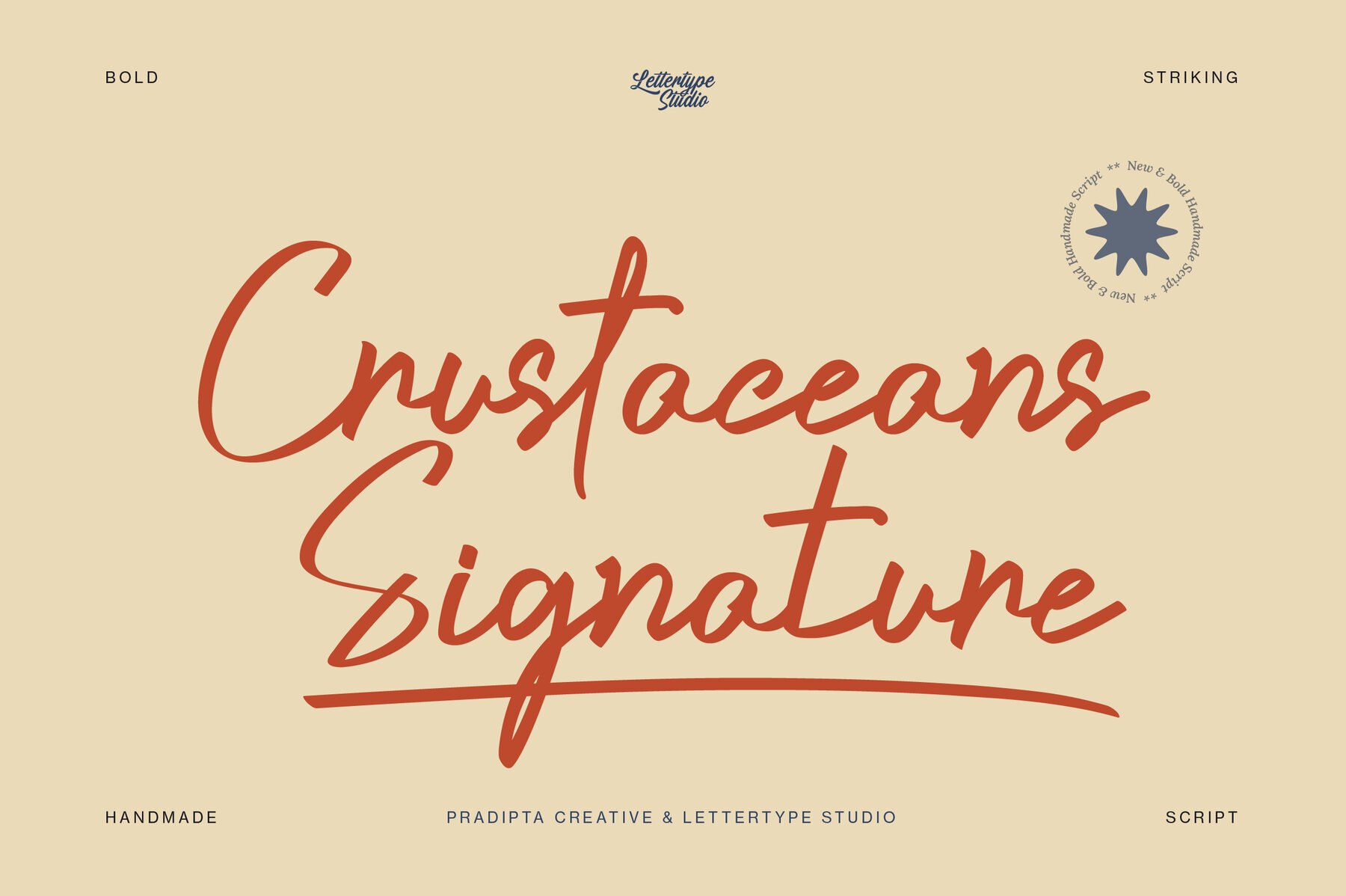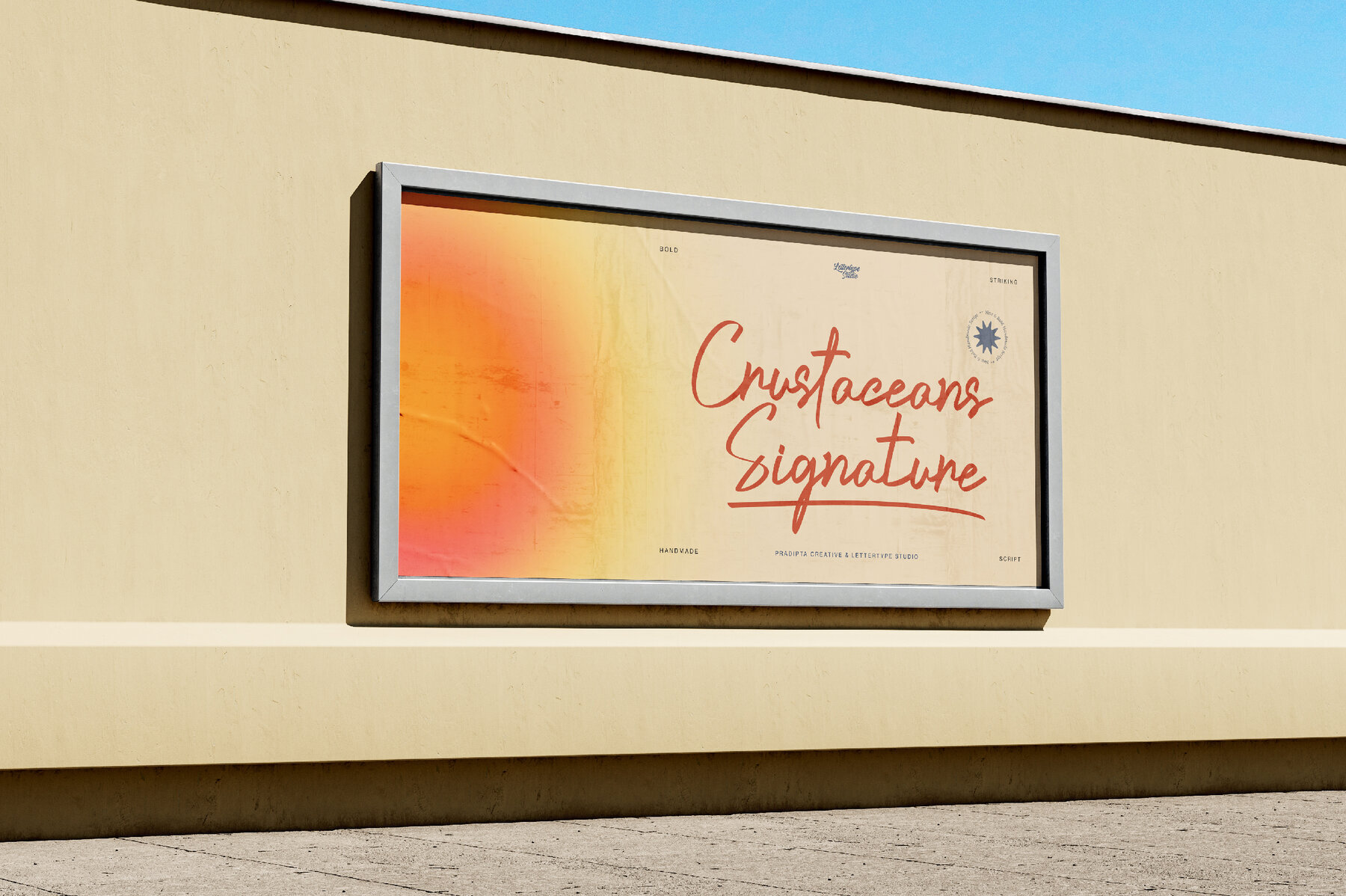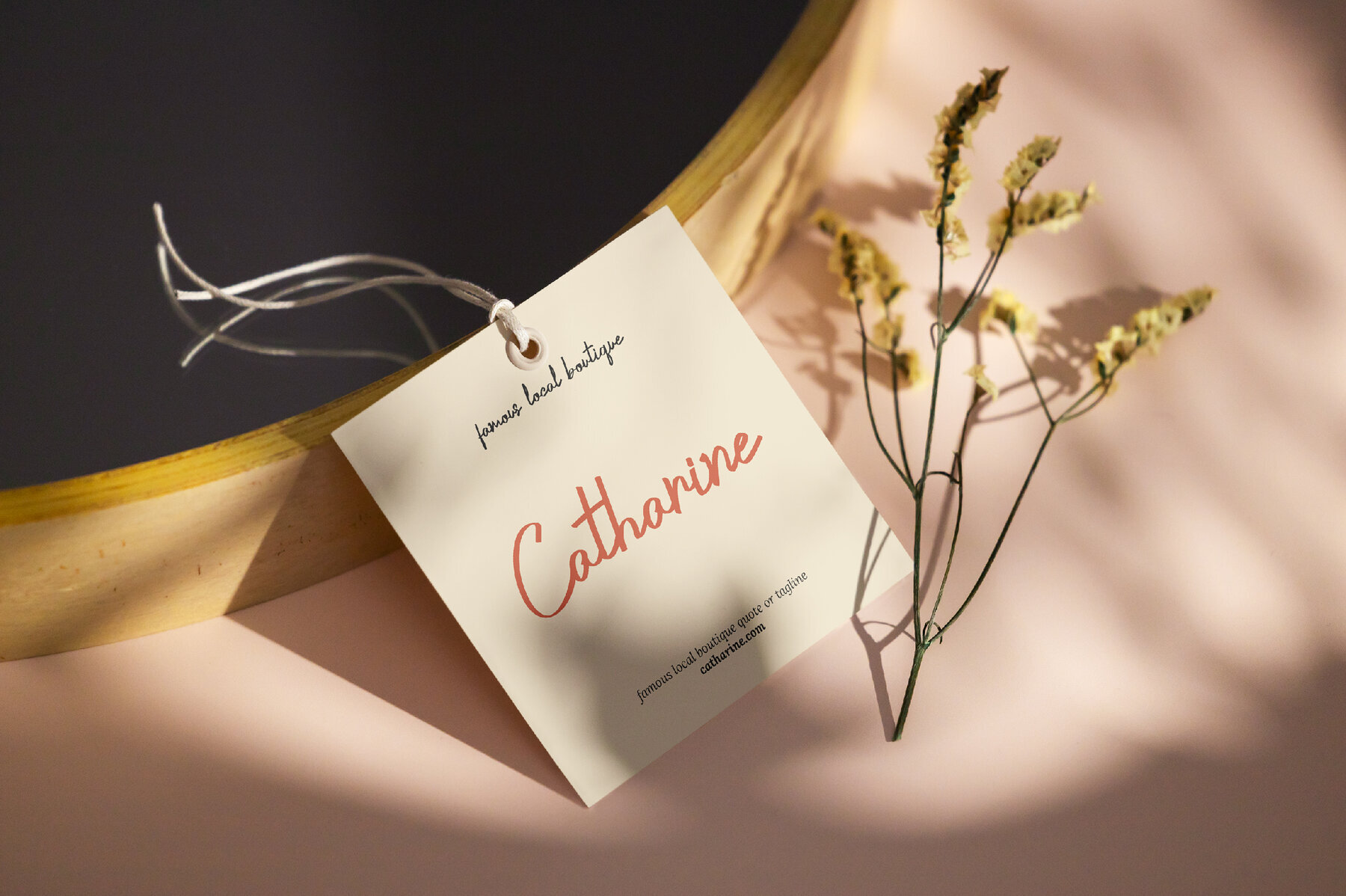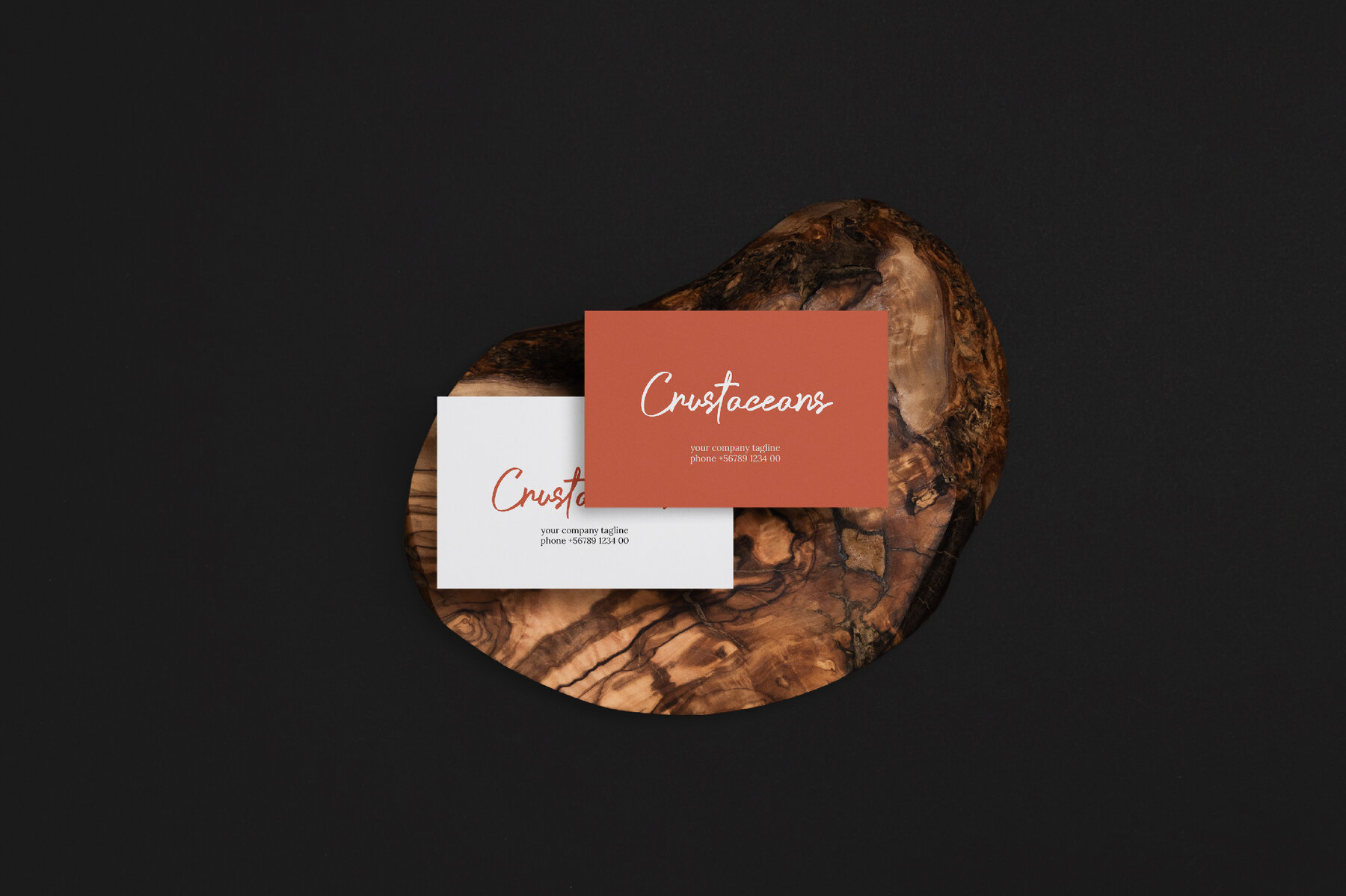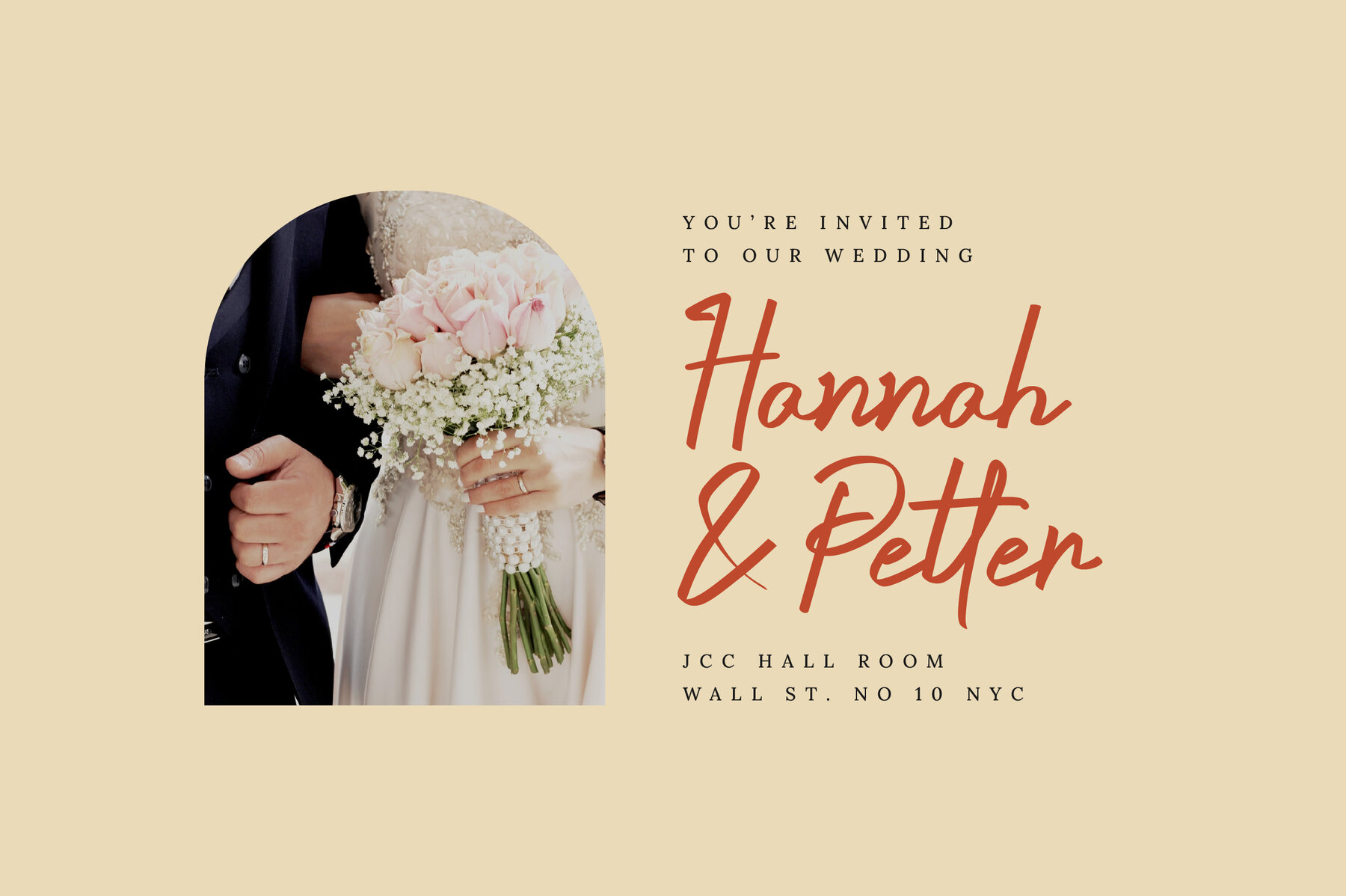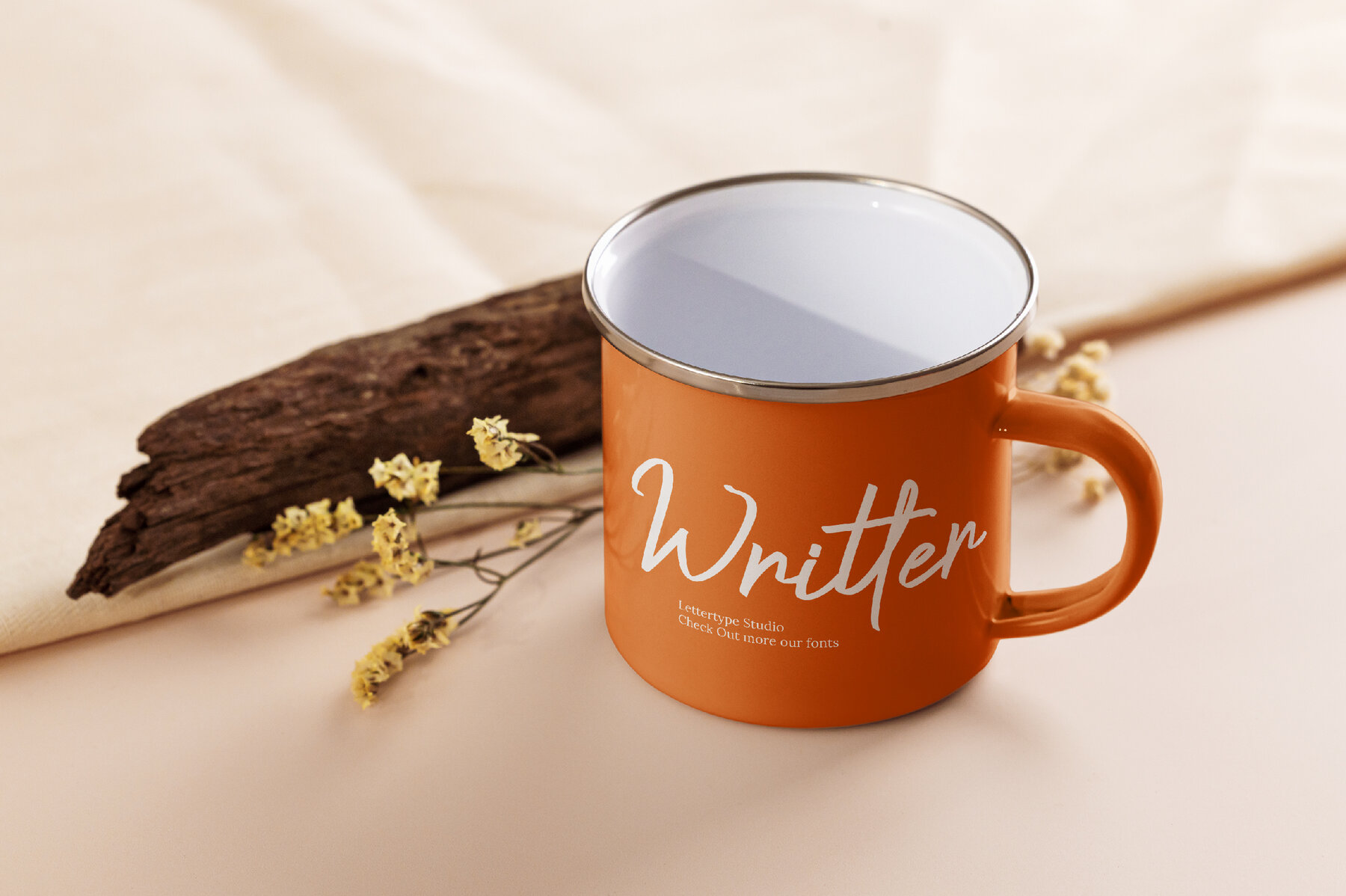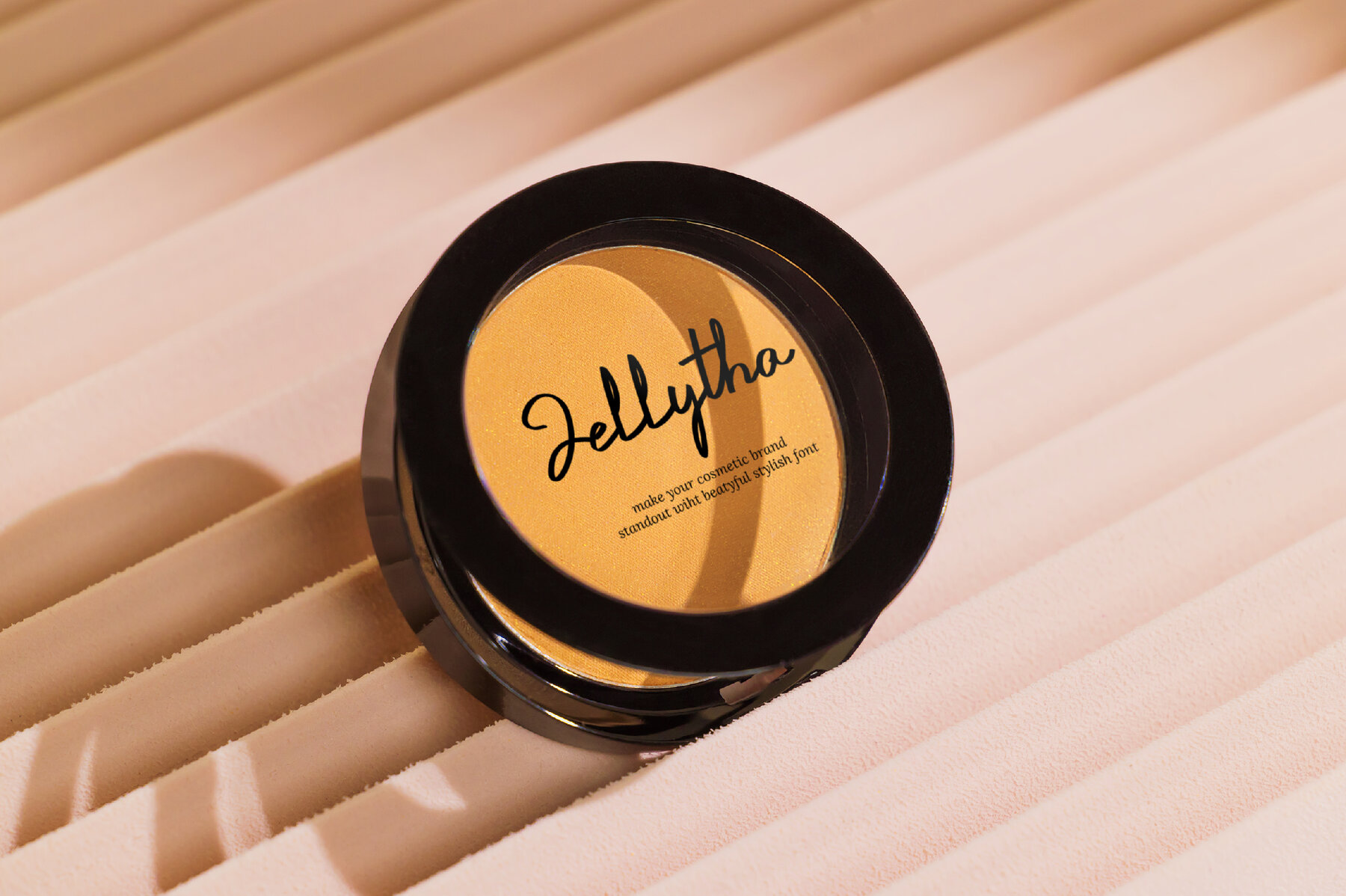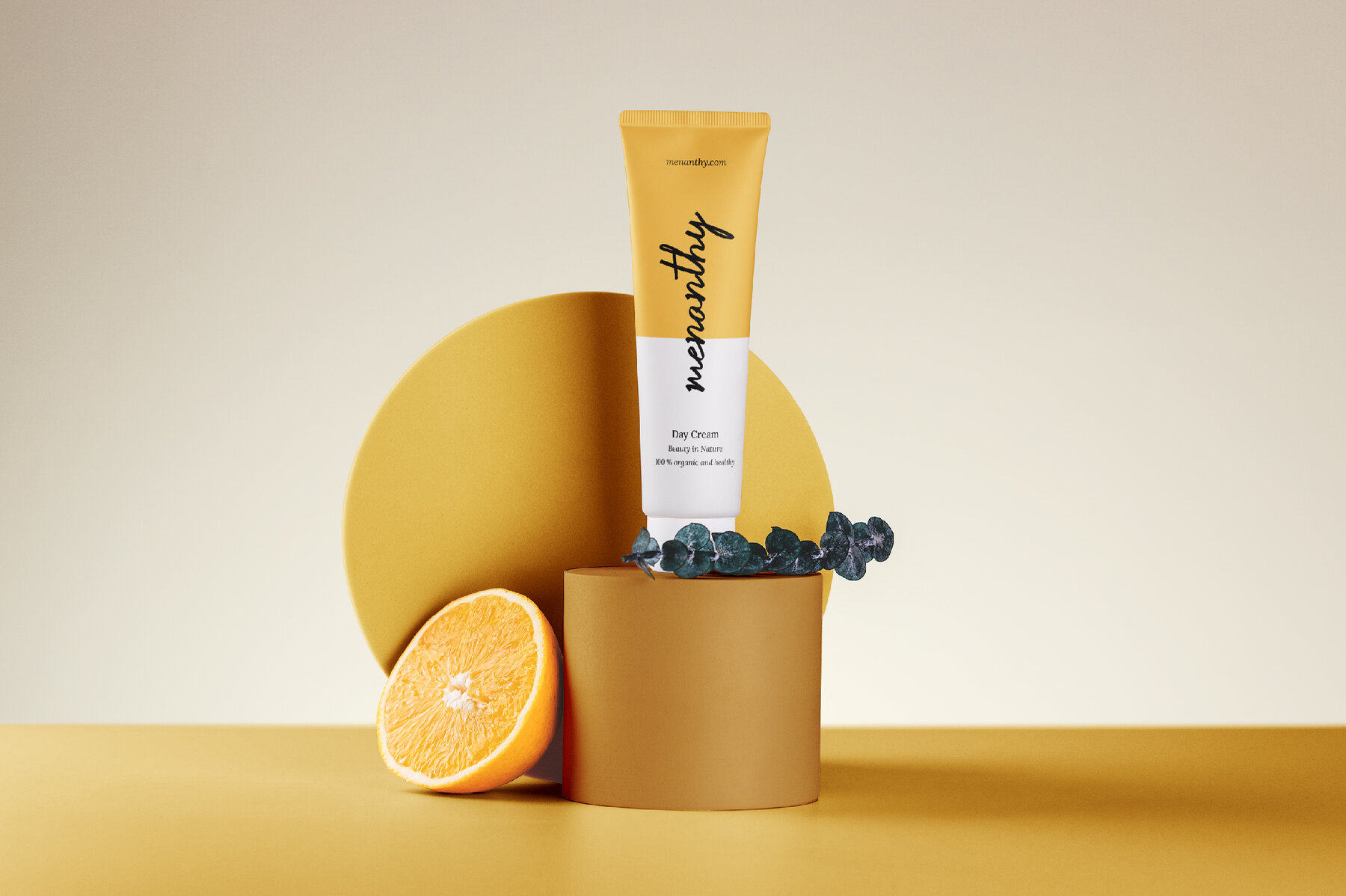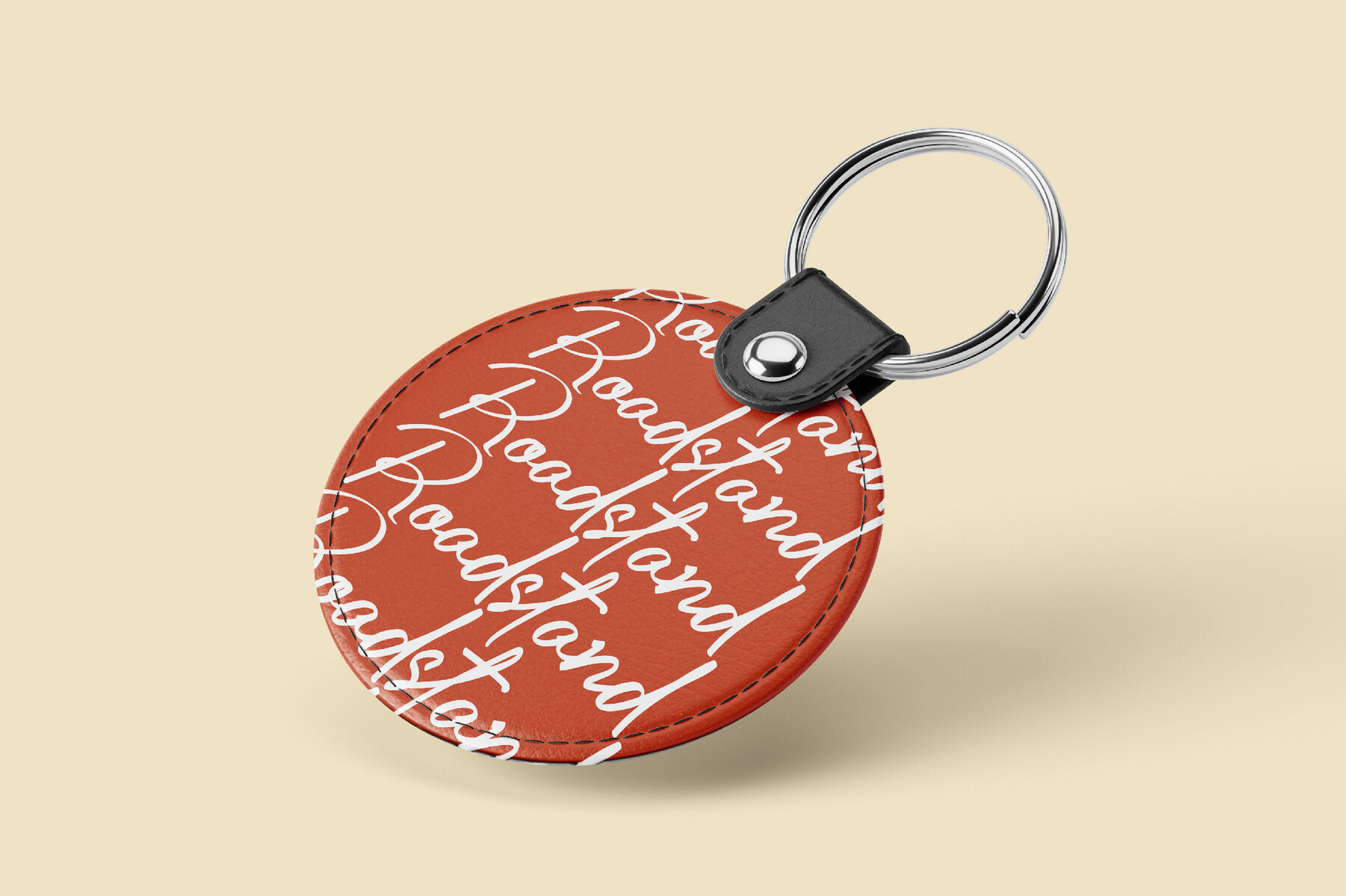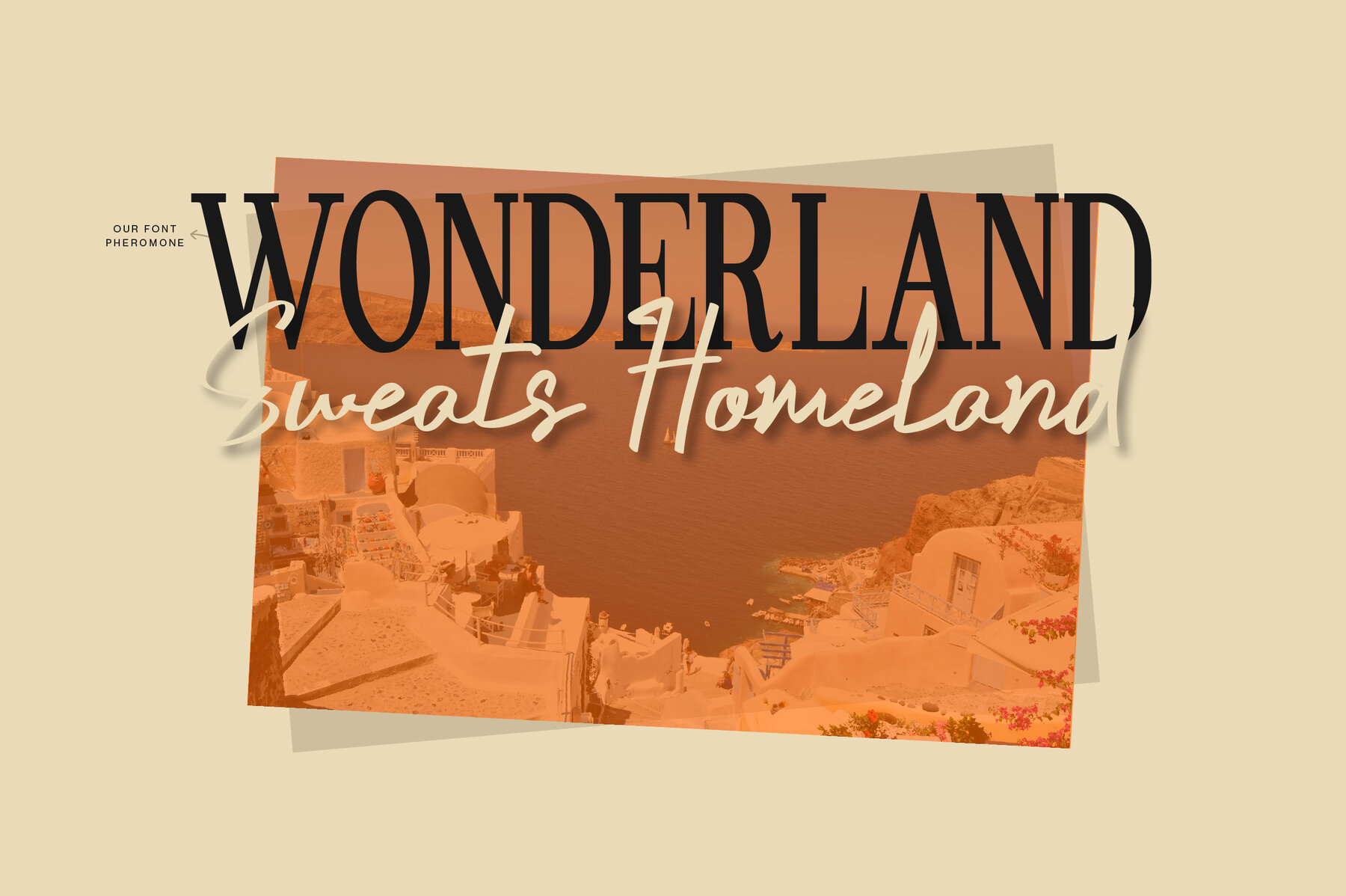
Crustaceans Signature Font
Crustaceans Signature Regular
Embrace the captivating allure of Crustaceans Signature, a bold and handmade script font crafted for modern creativity. Ideal for various applications, this font enhances photography, social media, branding, invitations, and product packaging with its unique charm.Crustaceans Signature: A Bold Handmade Script